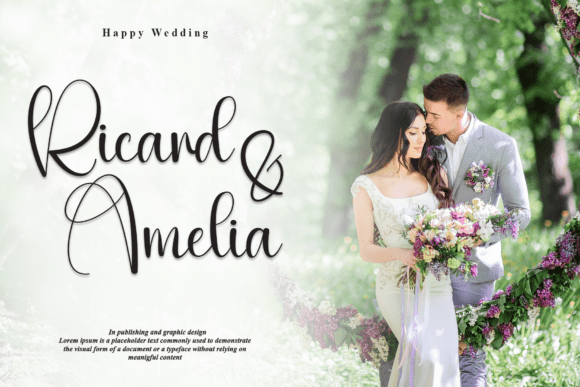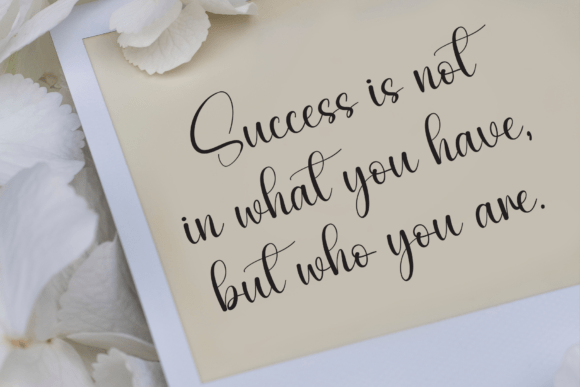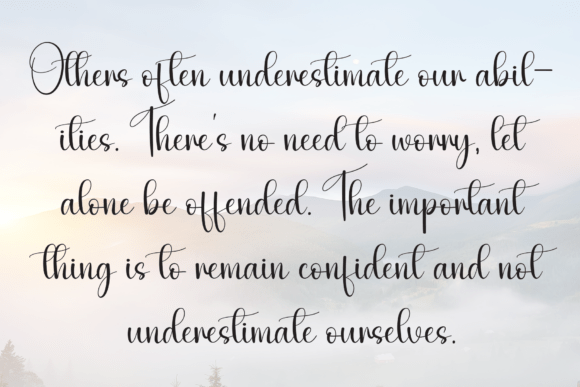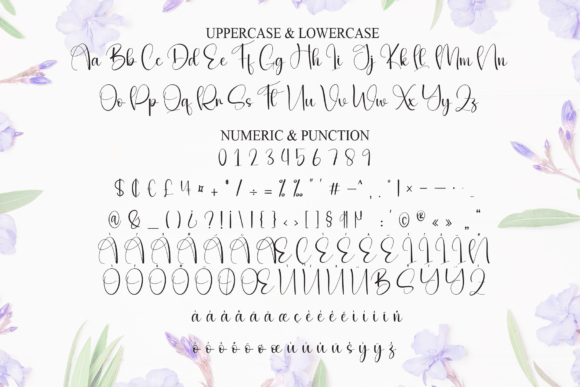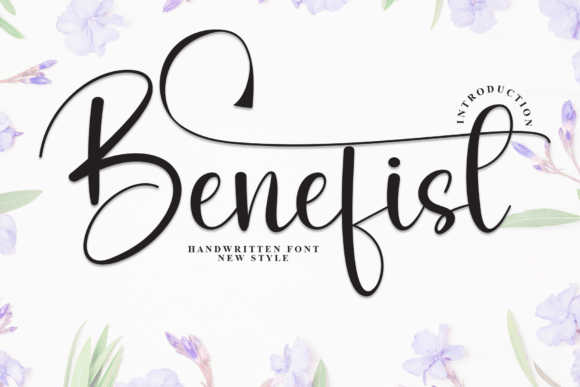
Introducing Benefist Font: The Ultimate Choice for Whimsical Designs
Are you tired of using the same old fonts for your designs? Look no further! We’re excited to introduce Benefist Font, a delightful and amiable handwritten display font that exudes charm at every curve. With its playful and lighthearted design, this font is perfect for crafting whimsical wedding invitations, heartwarming cards, or any project that needs a sprinkle of joy and fun.
The Perfect Blend of Playfulness and Elegance
Benefist Font is designed to bring a touch of magic to your designs. Its unique and quirky style makes it stand out from the crowd, while its elegant and refined features ensure that it remains sophisticated and eye-catching. Whether you’re a designer, crafty DIY enthusiast, or simply someone who loves to create, this font is sure to inspire your next project.
Endless Possibilities with Benefist Font
One of the best things about Benefist Font is its versatility. Its playful and lighthearted design makes it perfect for a wide range of projects, including:
• Birthday cards and party decorations
• Branding and packaging design
• Art and craft projects
Why Choose Benefist Font?
So, what sets Benefist Font apart from other fonts? Here are just a few reasons why designers and crafters love this font:
• Unique and eye-catching design: Benefist Font has a one-of-a-kind style that’s sure to grab attention and make your designs stand out.
• Playful and lighthearted vibe: This font is perfect for adding a touch of whimsy and fun to your designs.
• Elegant and refined features: Despite its playful nature, Benefist Font remains sophisticated and elegant, making it suitable for a wide range of projects.
• Easy to read and use: The font is clear and legible, making it easy to use for both digital and print projects.
Tips for Using Benefist Font
To get the most out of Benefist Font, here are a few tips to keep in mind:
• Use it sparingly: While Benefist Font is perfect for headlines and titles, it can be overwhelming if used too much. Balance it with a simpler font for body text.
• Experiment with colors and textures: Benefist Font looks great in a variety of colors and textures. Don’t be afraid to get creative and try out different combinations.
• Pair it with complementary fonts: For a cohesive look, pair Benefist Font with a complementary font that shares similar design elements.
Get Creative with Benefist Font
In conclusion, Benefist Font is a unique and charming handwritten display font that’s perfect for designers and crafters looking to add a touch of playfulness and elegance to their projects. With its endless possibilities, ease of use, and eye-catching design, this font is sure to become a favorite in your collection. So go ahead, get creative, and let Benefist Font bring joy and fun to your designs!